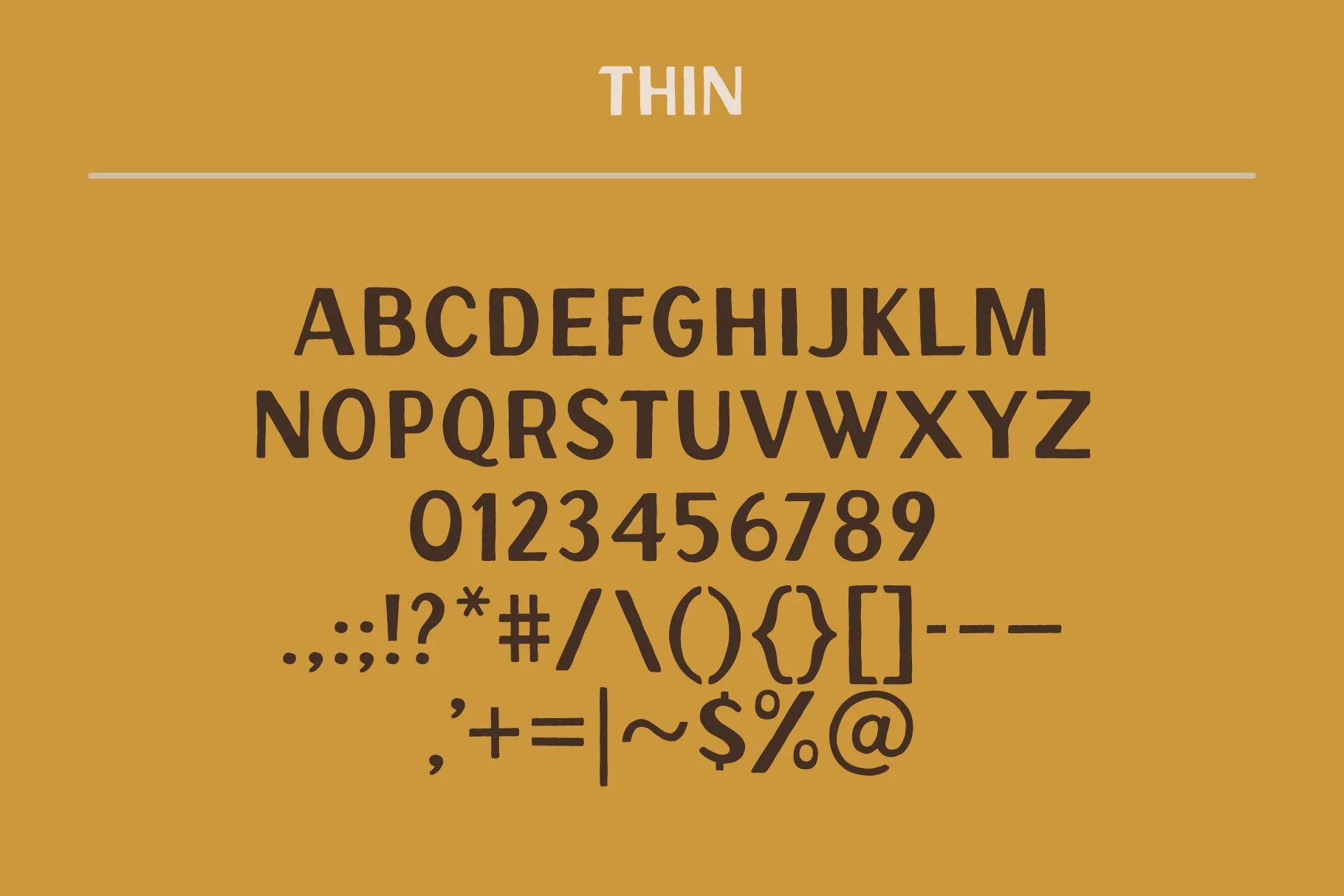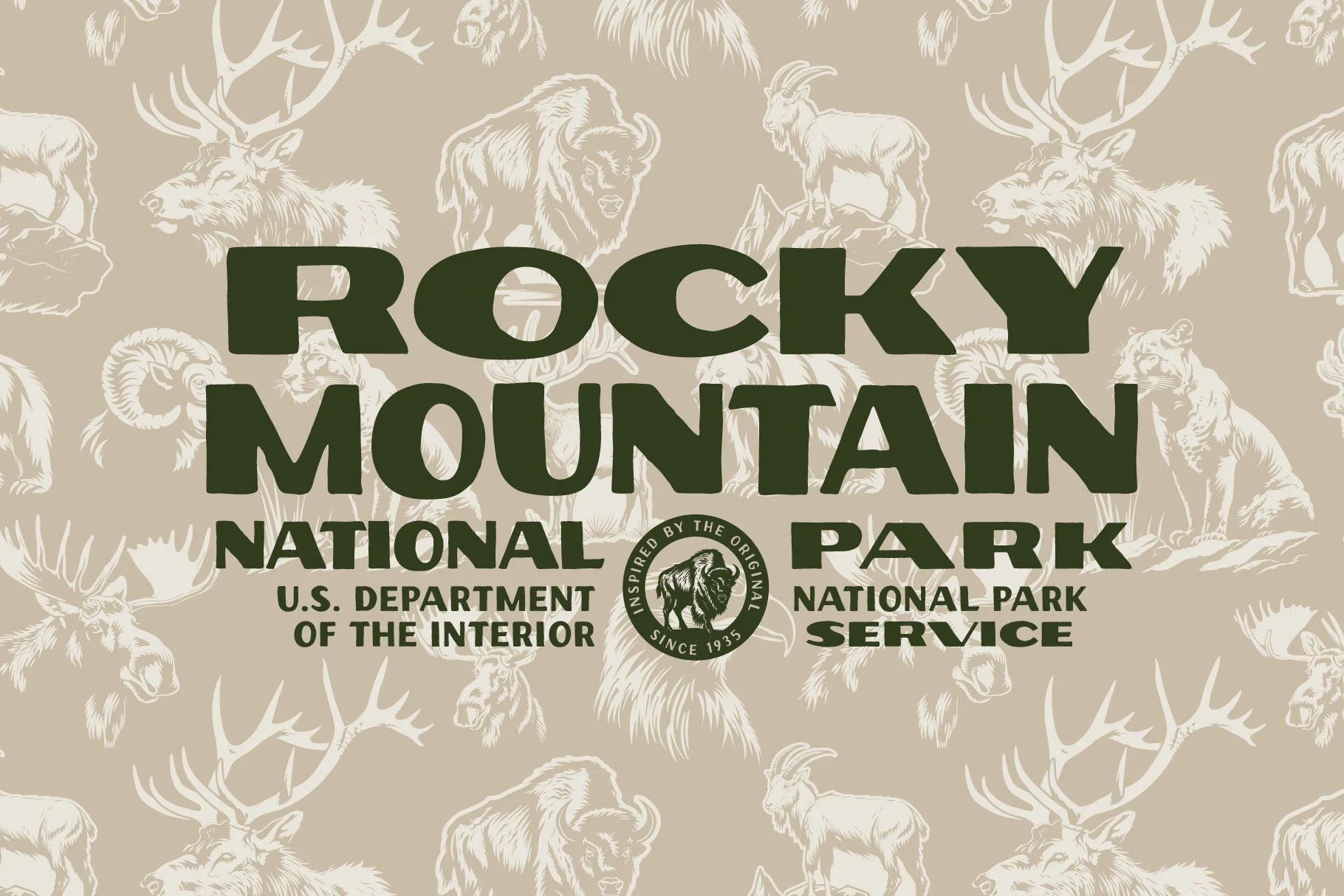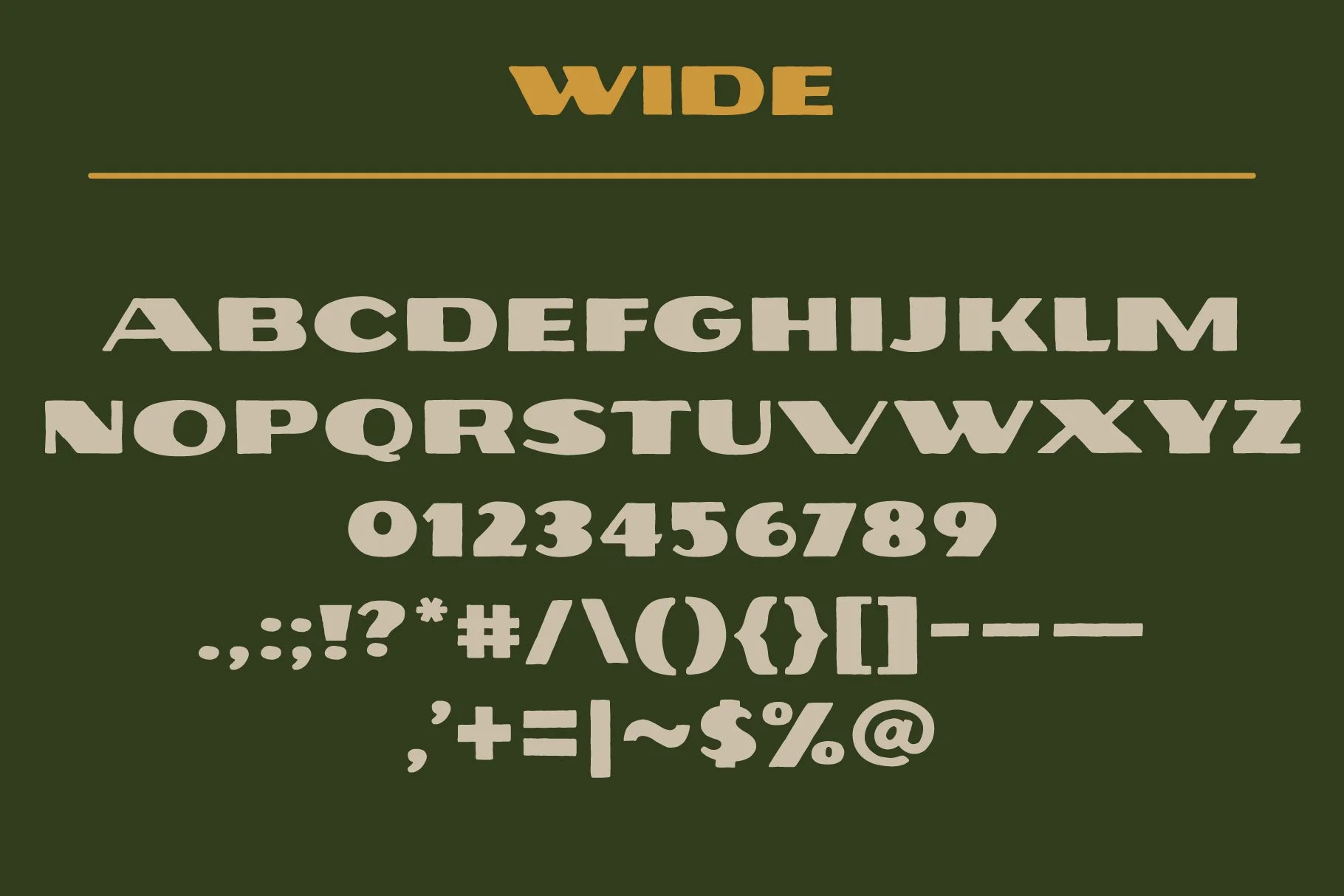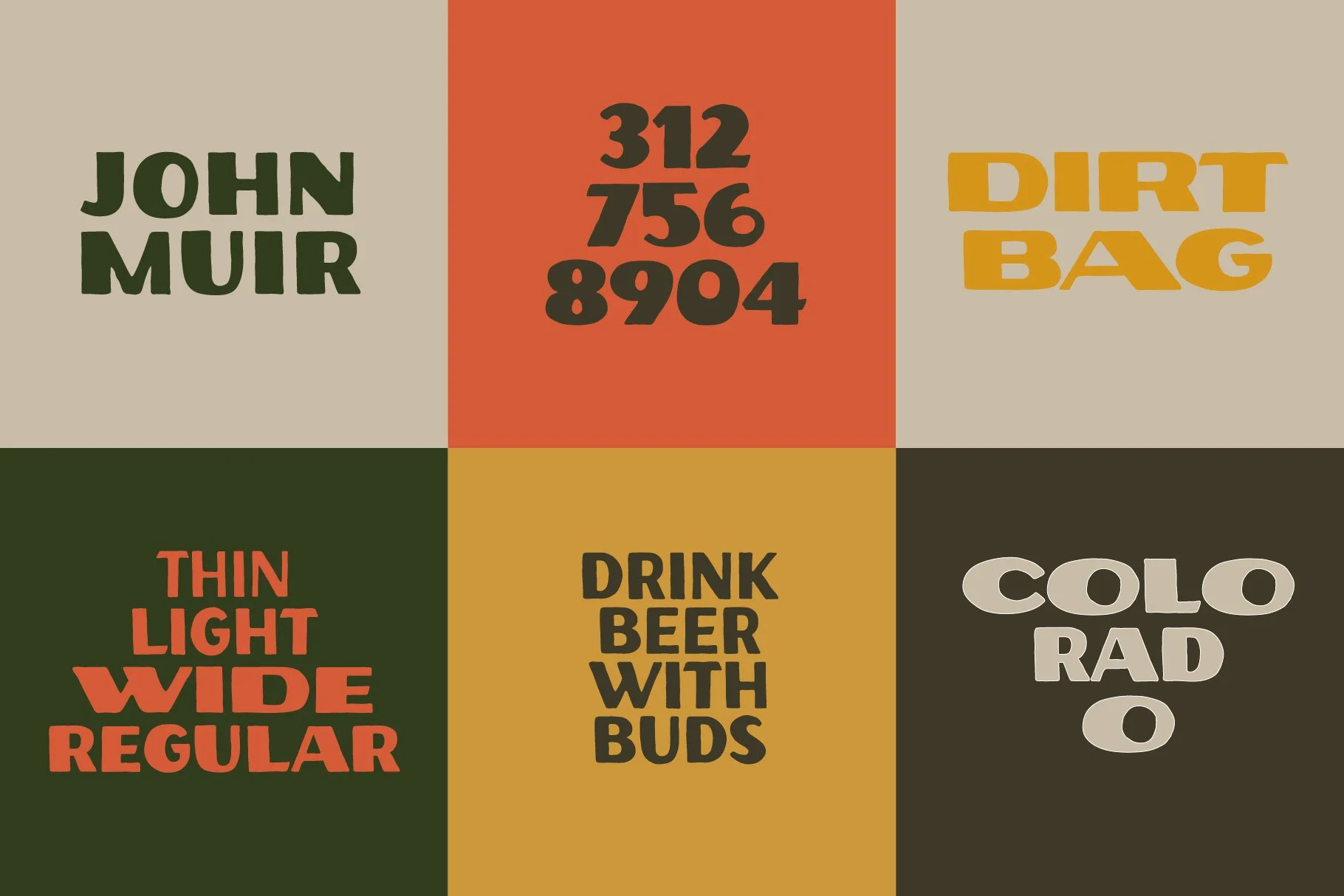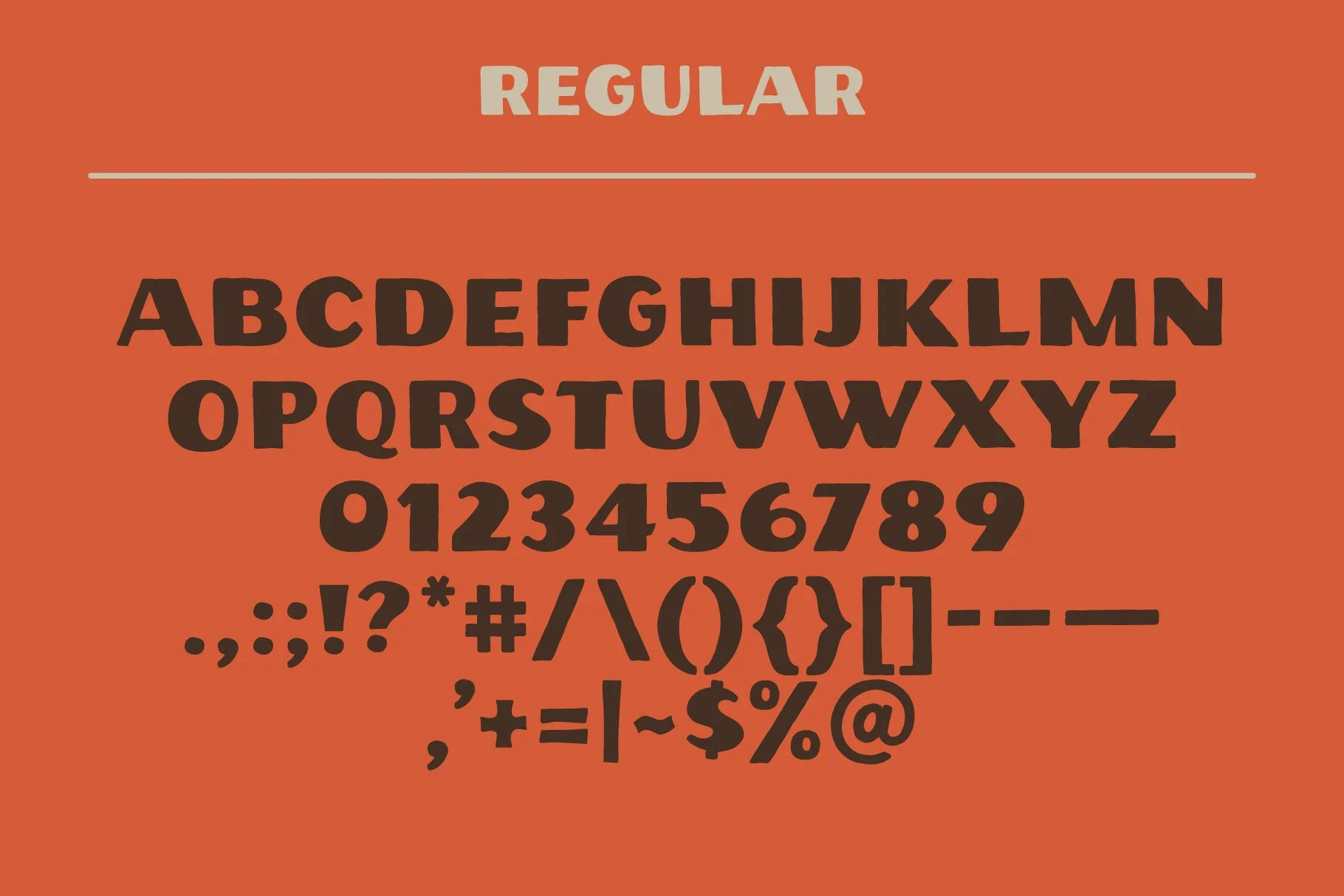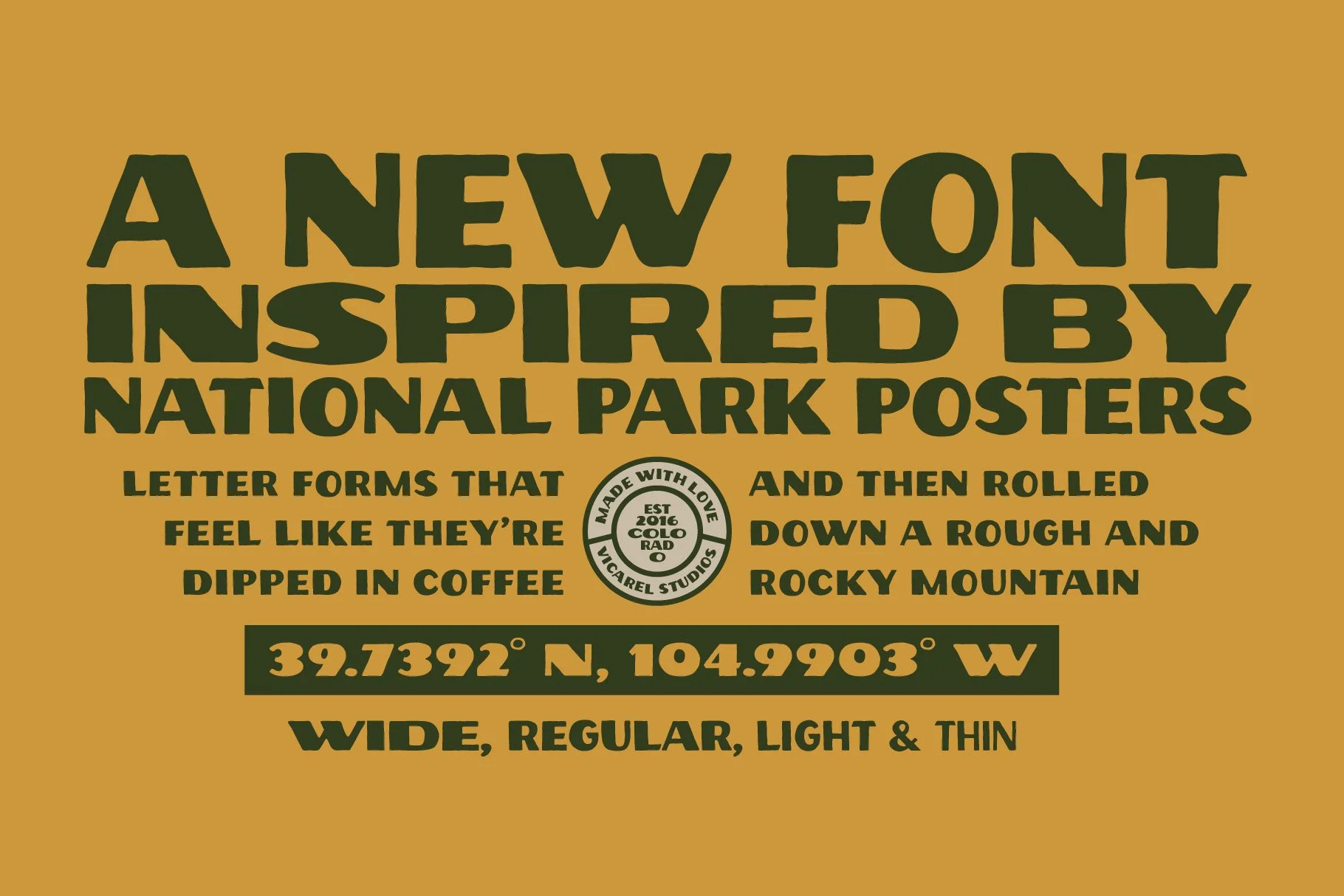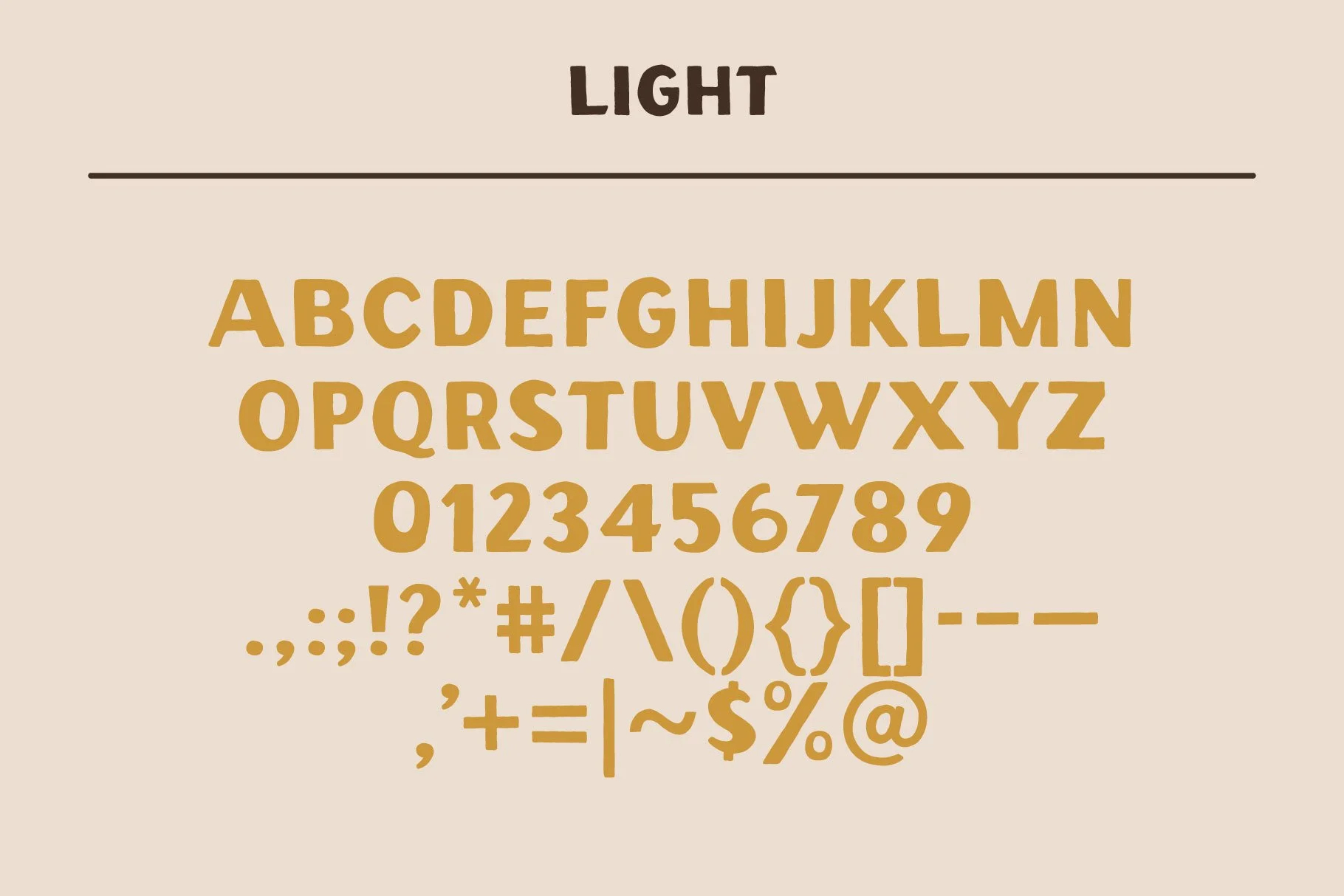
John Muir Sans: A National Park Poster Font
The National Park Poster font favored by brands around the world.
A versatile, rough and worn sans serif font inspired by the vintage WPA National Park poster fonts, the National Forest Service and the iconic John Muir himself. Comes in 4 styles: wide, regular, light, and thin.
A versatile, rough and worn sans serif font inspired by vintage National Parks poster fonts, the National Forest Service and the iconic John Muir himself.
Immediately iconic for logo design and branding, t-shirt and apparel design, or any other graphic design needs.